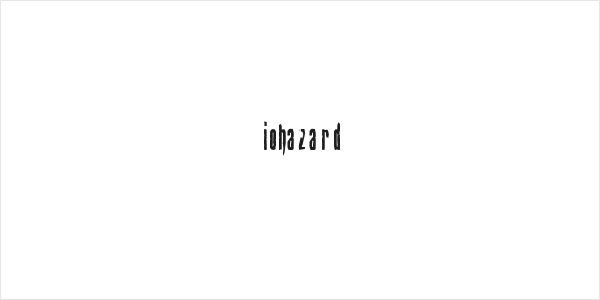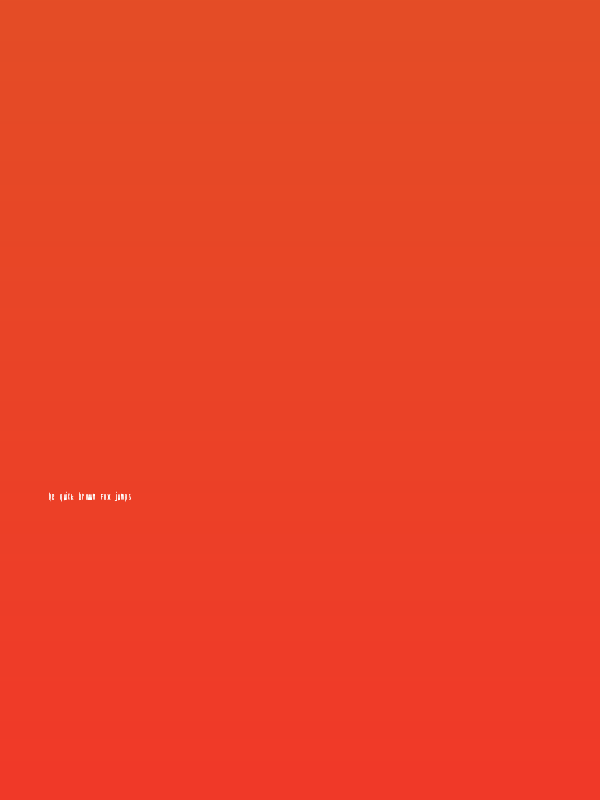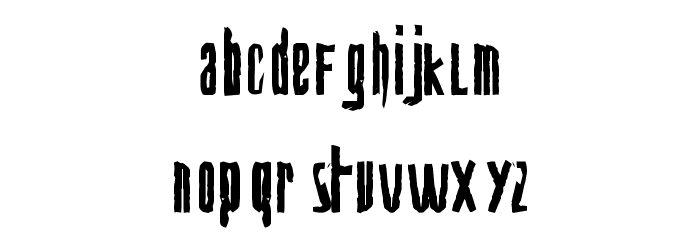
Biohazard Font
Biohazard Description
This font features a rugged and distressed appearance, reminiscent of worn or decayed surfaces. The characters are unevenly shaped, with jagged edges and varying stroke widths, giving it a raw and edgy look. The uppercase and lowercase letters maintain a consistent style, with a slightly condensed form that enhances its bold presence. The overall design conveys a sense of urgency and caution, making it suitable for themes related to danger or rebellion. The unique texture and irregularities in the letterforms add to its distinct and memorable character.
| Proposed Projects | Ideal for use in horror movie posters, video game titles, or any design project requiring a gritty, rebellious aesthetic. |